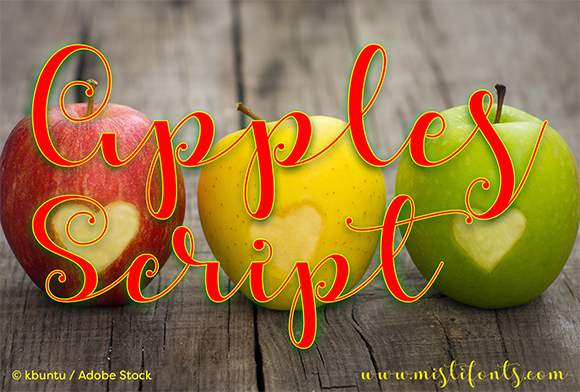
Get Ready to Add a Touch of Elegance to Your Designs
Have you ever been working on a craft project or design and felt like something was missing – a little something that would elevate it from ordinary to extraordinary? That’s exactly what happened to me when I was brainstorming ideas for a custom wedding invitation. I wanted it to be unique, personal, and breathtakingly beautiful. That’s when I stumbled upon the perfect solution – a stylish, calligraphy font that would add a touch of sophistication to my design.
Introducing the Apples Script Font, a beautiful calligraphy font that’s perfect for any craft or design project. This elegant font is designed to add a personal touch to your creations, making them truly special and unique. As a designer, I can attest to the value of having a versatile font like Apples Script at your disposal – it’s a game-changer for any project that requires a touch of elegance and sophistication.
Key Features of Apple’s Script Font
- Font Family: Apple’s Script Font is a part of the Apple Font Collection, specifically designed for use in Apple’s operating systems and applications.
- Unique Characteristics: Apple’s Script Font features a flowing, connected script style with a high level of expressiveness, making it ideal for use in creative and artistic applications.
Apples Script Font Review
Overall, I was excited to try out Apples Script Font, but my experience was a mix of good and bad.
- The font has a unique, elegant feel to it. It’s perfect for creative projects that require a touch of sophistication.
- It’s highly customizable, allowing you to adjust the weight, size, and spacing to suit your needs.
- The font is available in a wide range of languages, making it a great choice for international projects.
- The font can be quite busy, which may make it difficult to read in large blocks of text.
- It’s not ideal for use in body text, as it can be distracting and may lead to eye strain.
- The font is not compatible with all operating systems, which may limit its use in certain projects.
While Apples Script Font is a beautiful and elegant font, it’s not without its limitations. It’s best suited for use in headings, titles, and other creative elements, rather than body text. With some careful consideration and customization, it can be a valuable addition to your design toolkit.
Practical Application Guide for Apples Script Font
Apples Script Font is a beautiful, elegant font that works well for:
- Formal event invitations
- Wedding and event programs
- Personalized gifts and cards
For optimal results, use Apples Script Font in combination
Alternatives to Apple’s Script Font
Playfair Display is a luxurious and elegant script font perfect for creating a sophisticated look in designs. It is ideal for use in headings, titles, and other high-impact areas. Compared to Apple’s Script Font, Playfair Display has a more refined and polished feel, making it suitable for high-end designs. However, it may be too ornate for everyday use.
Carolyna Pro is a modern script font with a touch of elegance and sophistication. It is suitable for use in designs that require a balance between modernity and classic style. Compared to Apple’s Script Font, Carolyna Pro has a more subtle and understated feel, making it ideal for use in a wide range of design applications.
Great Vibes is a beautiful and elegant script font perfect for creating a warm and inviting look in designs. It is ideal for use in headings, titles, and other high-impact areas. Compared to Apple’s Script Font, Great Vibes has a more relaxed and casual feel, making it suitable for use in designs that require a friendly and approachable tone.